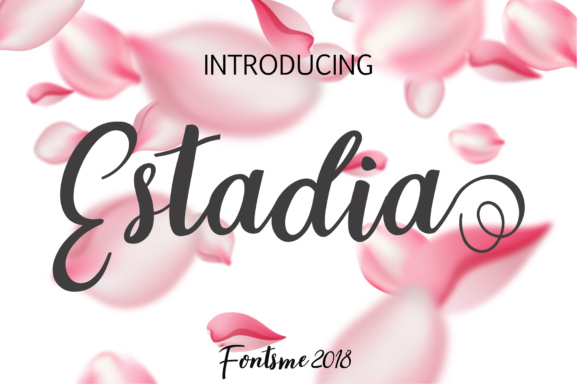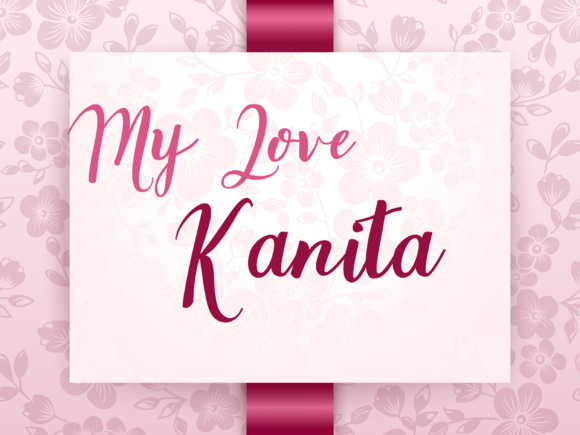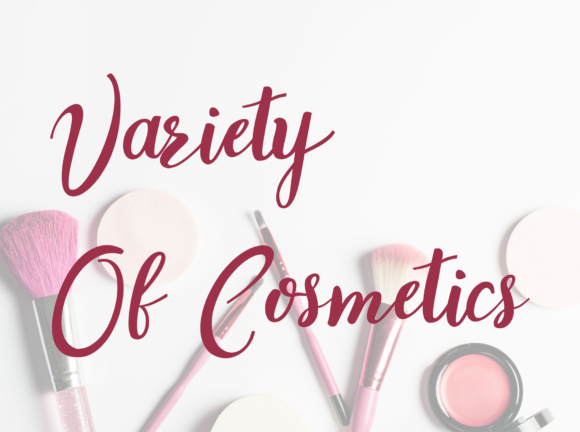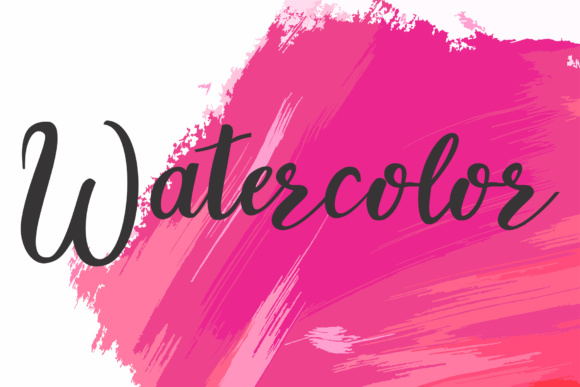
Estadia Font
About Estadia Font
Estadia is a swirly and beautiful script font, suitable for a wide range of designs that need a romantic feel. This font is a great way to add a feminine charm to your work.